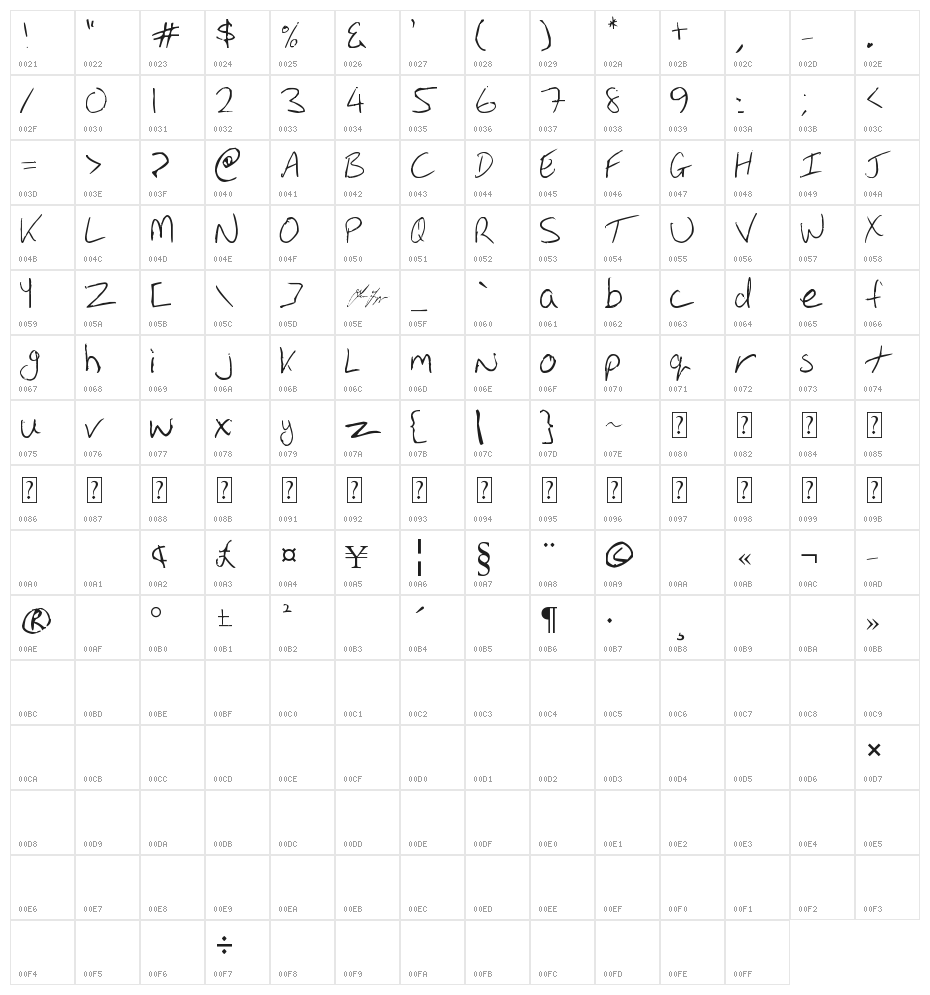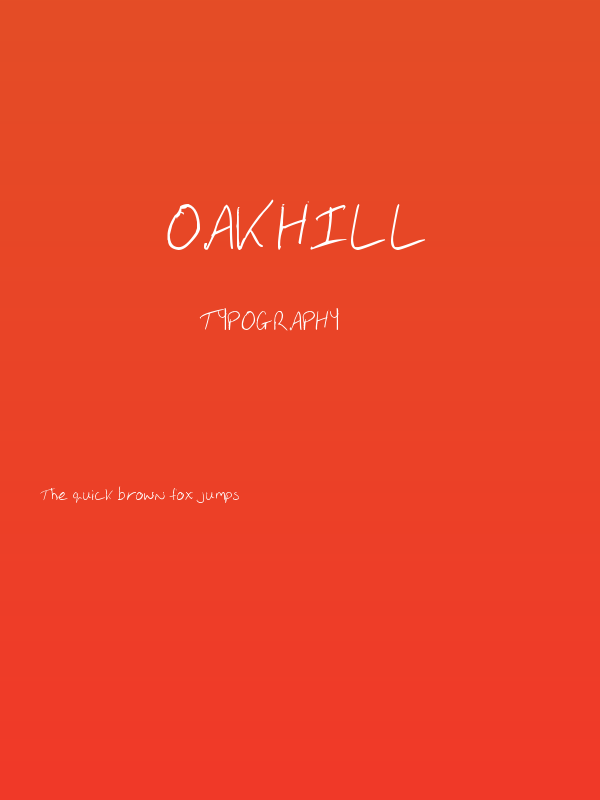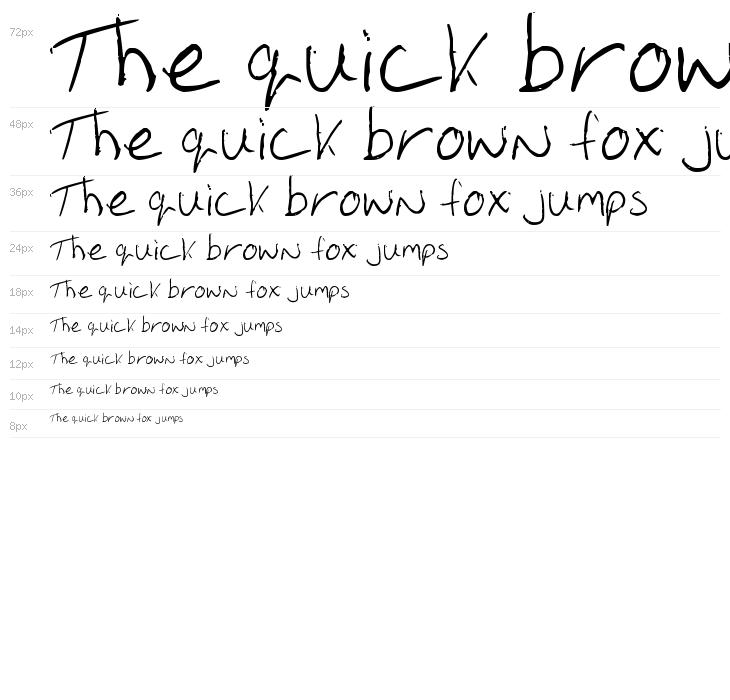
Oakhill Font
| Gesamtstil | Casual, Organic |
| Anwendungsfall | Headlines, Logos, Informal Text |
| Vorgeschlagene Projekte | Ideal for personal invitations, greeting cards, creative branding, and informal communications. |